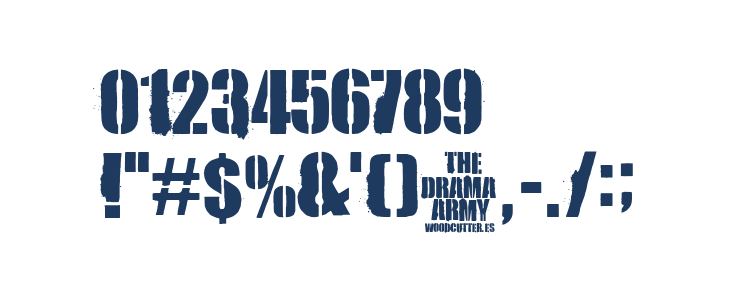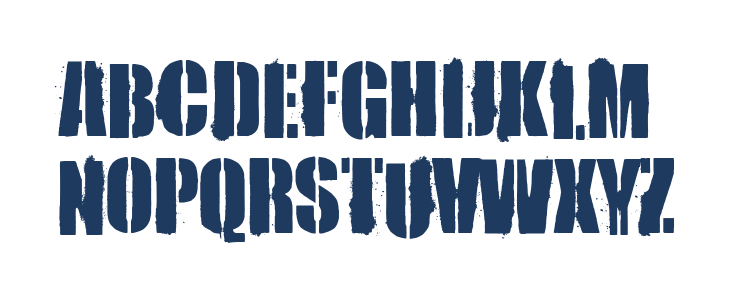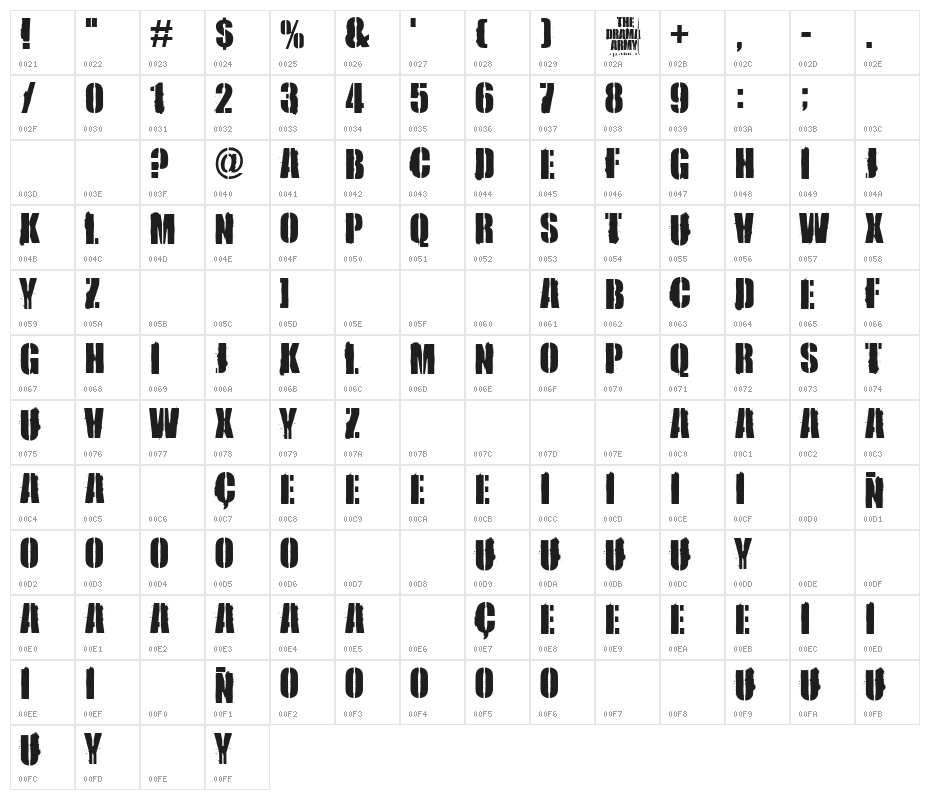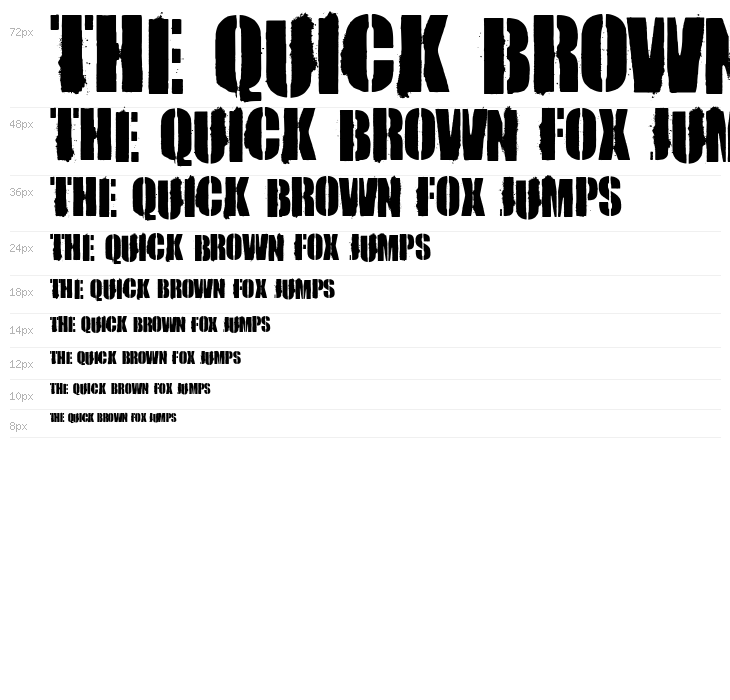
the Drama Army Font
the Drama Army Description
A bold, stencil-style display font with heavy, blocky letterforms and distressed, grungy textures that mimic spray paint or worn surfaces. The characters are uppercase only, with consistent width and height, and feature rough, irregular edges and splatter effects throughout.
| Overall Style | Decorative, Grunge, Military, Urban |
| Use Case | Headlines, Posters, Logos, Display text |
| Proposed Projects | Posters, protest signs, album covers, military-themed graphics, urban branding, event flyers. |